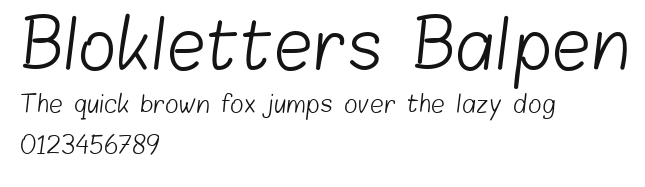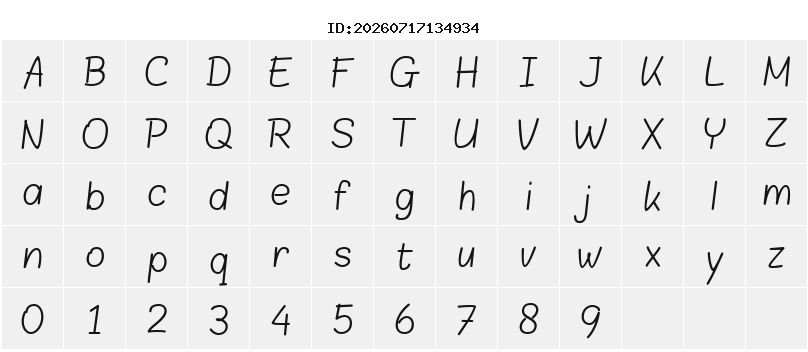
Blokletters Balpen Preview
• Font Name: Blokletters Balpen
• Font Style: Balpen
• Font ID: LeFly: Blokletters Balpen: 2005
• Full Font Name: Blokletters Balpen
• PostScript Name: Blokletters-Balpen
• Character Count: 192
• Manufacturer: LeFly
About Blokletters Balpen.ttf
Blokletters Balpen.ttf is a modern, elegant sans-serif font designed for ultimate readability and visual harmony. Perfect for branding, headlines, web design, and print materials.